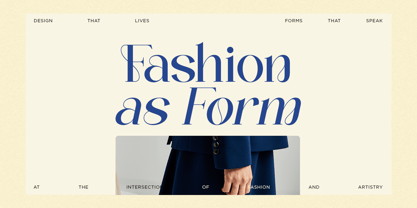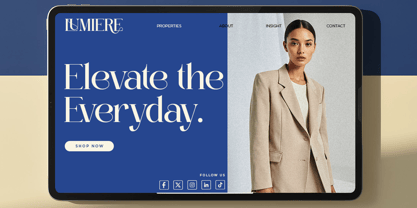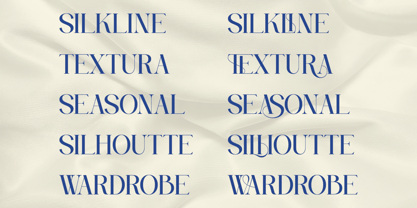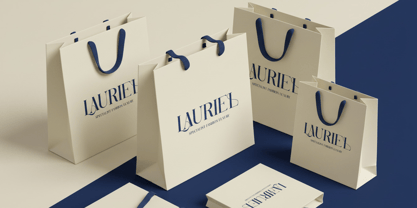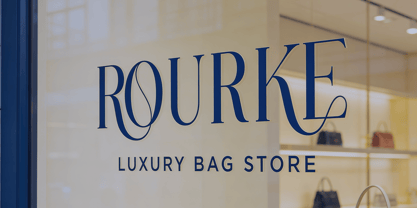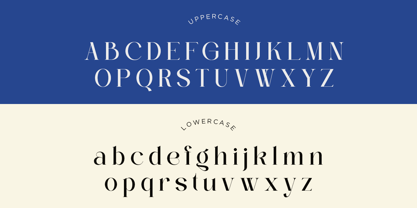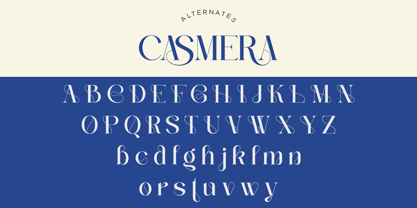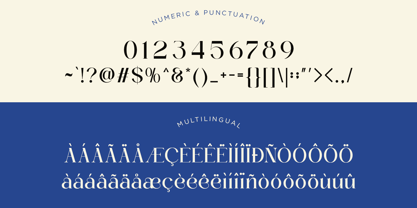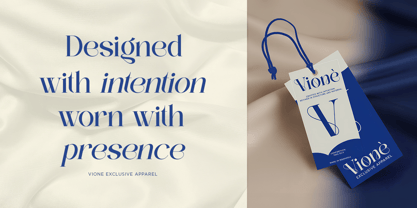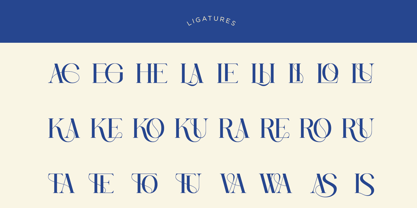
Casmera
Die Schriftfamilie Casmera wurde von Ghina Luthfiarieska entworfen und von Font Liner veröffentlicht. Casmera enthält 2 Stile und Familienpaketoptionen.
Casmera is an elegant ligature serif font that embodies luxury, refinement, and timeless sophistication. With its graceful curves, smooth stroke contrast, and artistic ligature connections, Casmera delivers a premium aesthetic that enhances any visual composition. The refined character shapes create a harmonious balance between classic elegance and modern editorial appeal. Designed for high-end branding, fashion identities, and editorial excellence, Casmera offers exceptional versatility across creative projects. From luxury logos and premium packaging to magazine layouts, wedding invitations, beauty branding, lifestyle visuals, and high-end advertising, this font adds a sense of exclusivity, elegance, and emotional impact that defines upscale design. Whether you're crafting luxury brand identities, boutique logos, editorial headlines, cosmetic packaging, fashion campaigns, jewelry branding, or sophisticated social media visuals, Casmera provides a refined typographic foundation. Its distinctive ligatures and elegant serif construction help create visual narratives that feel premium, timeless, and memorable across both print and digital platforms. Thank You, Have a Good Day! FontLiner